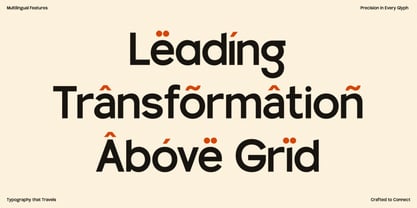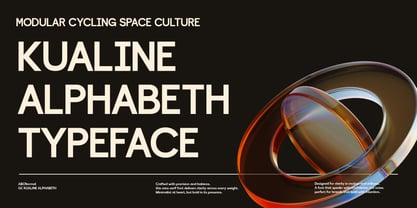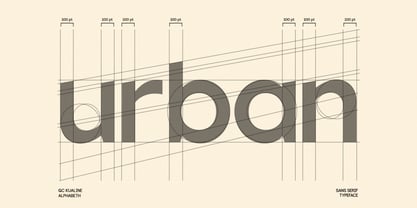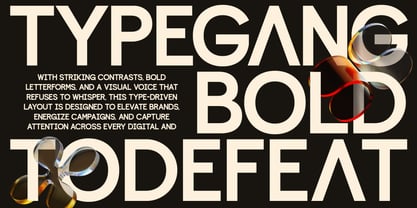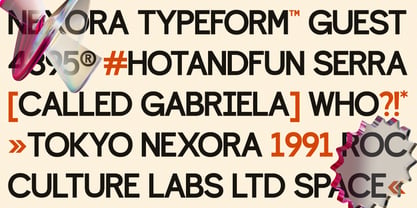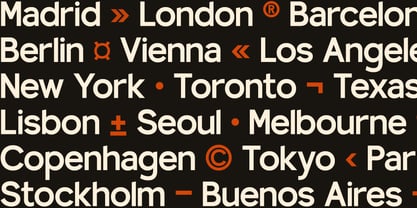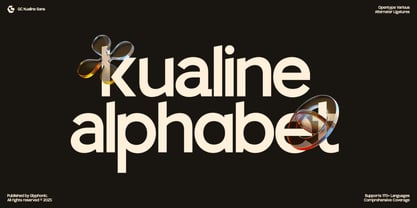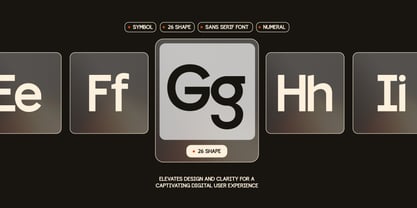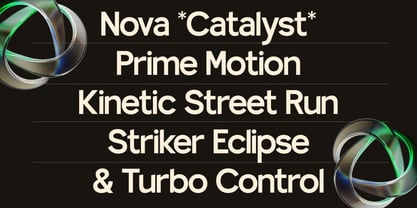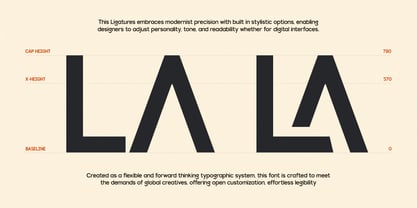
GC Kualine
by Onyx Studio
The GC Kualine Font Family was designed by Muhammad Hafiizh Solana and published by Onyx Studio. GC Kualine contains 1 styles. More about this family
GC Kualine is a modern sans-serif typeface that blends geometric precision with contemporary elegance. Designed with a clean and balanced structure, it is perfectly suited for headlines, branding, logos, packaging, editorial layouts, and digital interfaces. Crafted to make a bold yet refined impression, GC Kualine elevates your visual communication with clarity and style.
With its smooth curves, uniform strokes, and minimalistic details, GC Kualine offers a timeless aesthetic that feels both sleek and confident. Whether you're working on high-end fashion branding, tech presentations, or lifestyle content, this typeface delivers unmatched versatility and sophistication.
Features:
• Uppercase & Lowercase
• Ligatures & Stylistic Alternates
• Numbers & Punctuation
• Multilingual Support
Designers: Muhammad Hafiizh Solana
Foundry: Onyx Studio